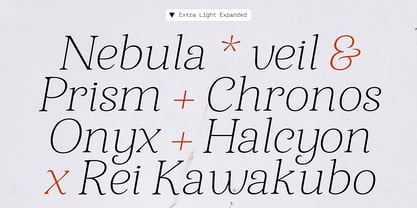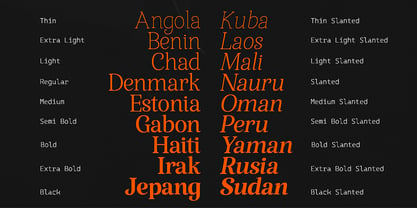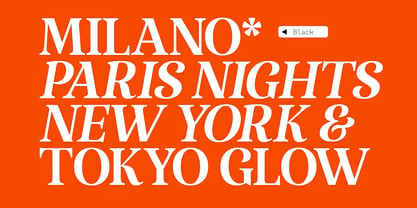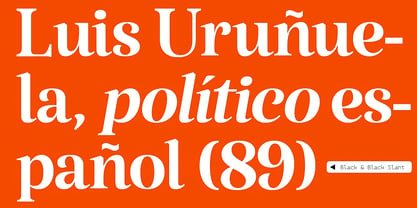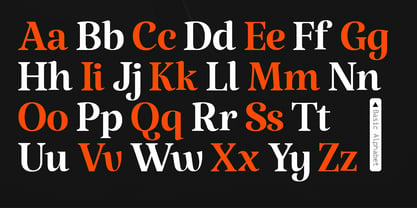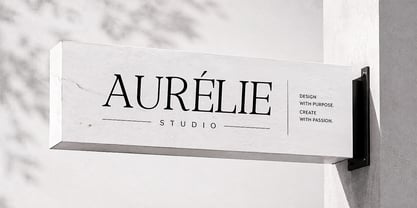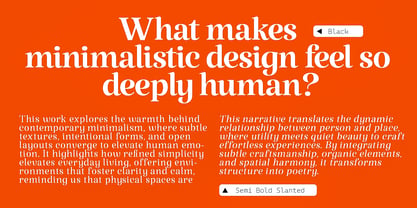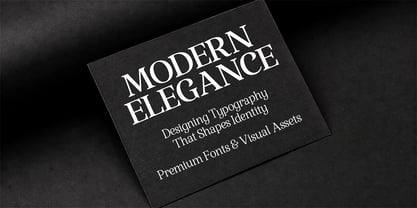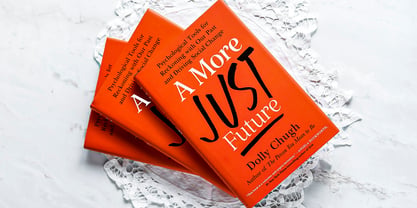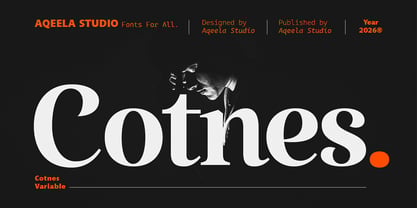
Cotnes
by Aqeela Studio
The Cotnes Font Family was designed by Muhammad Nasir and published by Aqeela Studio. Cotnes contains 91 styles and family package options. More about this family
Cotnes is an elegant serif variable font crafted by Aqeela Studio, combining a contemporary aesthetic with exceptional versatility. Featuring a complete weight spectrum from Thin to Black alongside Slanted and Expanded variations, it delivers a refined, striking, and highly adaptable visual character—ideal for high-end brand identity, editorial layouts, and modern minimalist design.